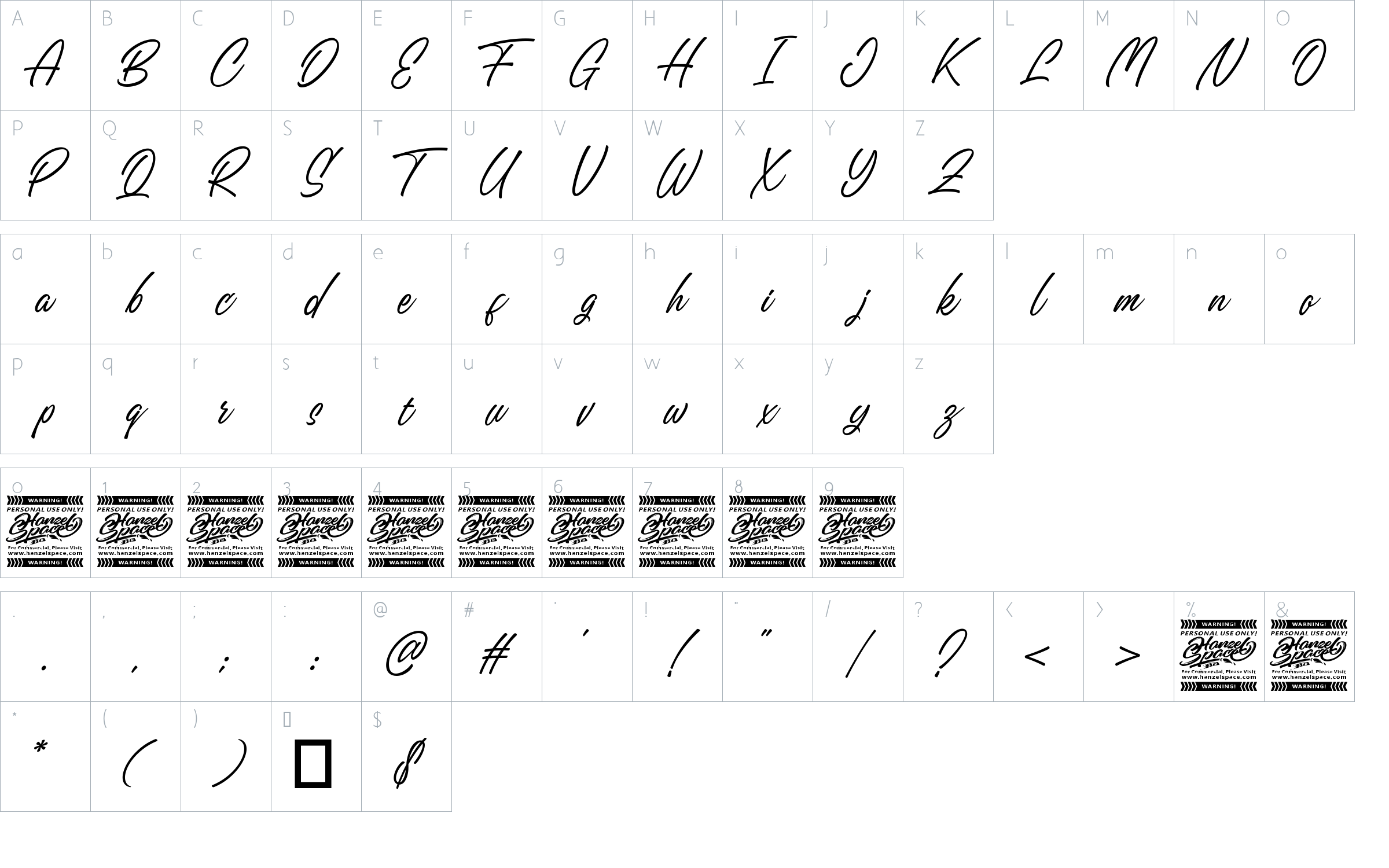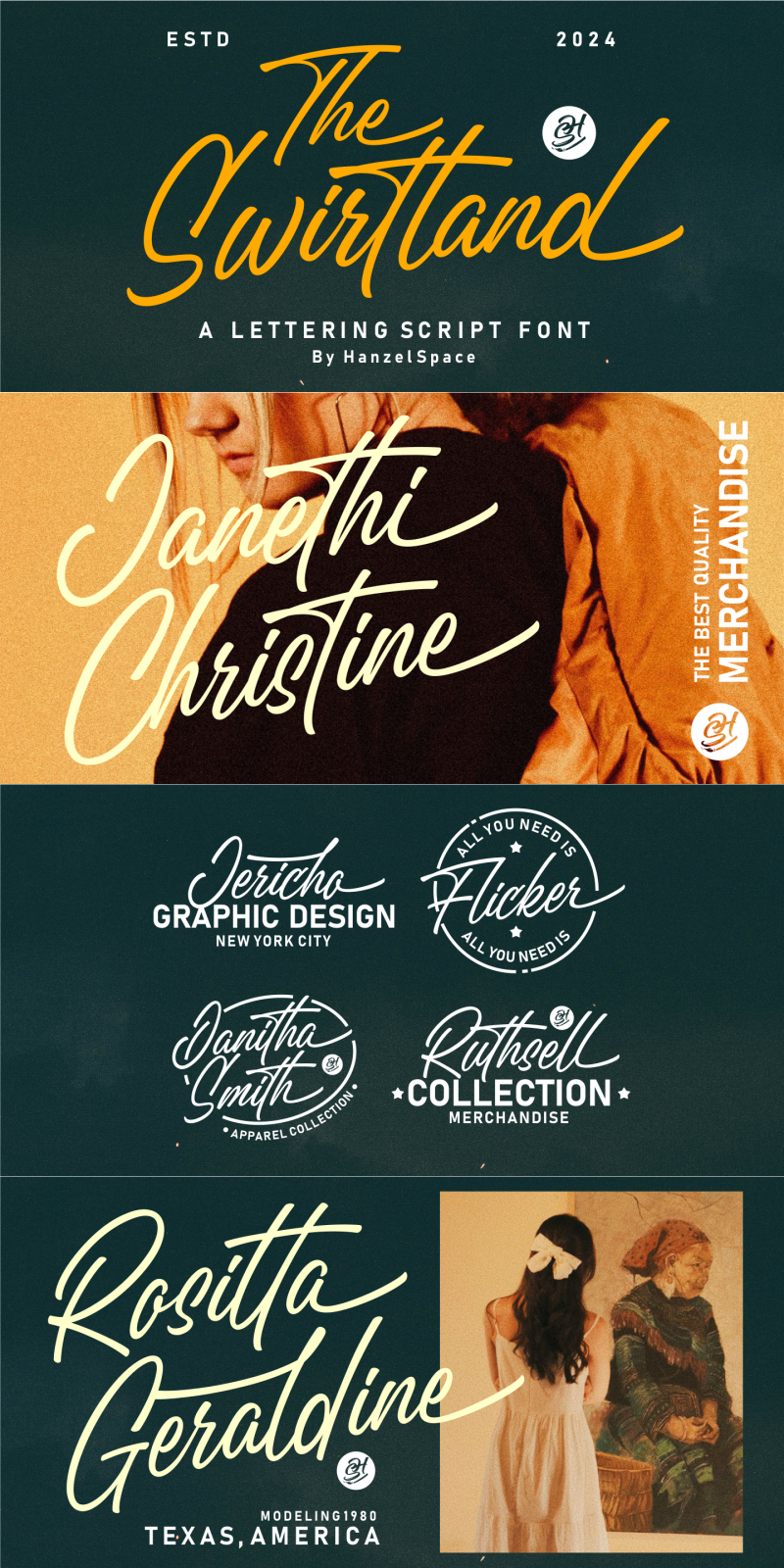
The Swirtland – A Lettering Script Font Font
About The Swirtland – A Lettering Script Font
Are you looking for a modern trandy script font? Do you want to create something that stands out and inspires
endless creativity, imagination and fun? What are you waiting for, we will provide the best choice for you.
Introducing The Swirtland Script displays a fairly neat Hand Lettering style. Made with a touch of personality on every curve of the letter anatomy. I hope this can inspire you in your work. and help you design your work. Equipped with a very practical bonus Swash set. Ideal for logos, handwritten quotes, product packaging, headers, posters, merchandise, social media & greeting cards.